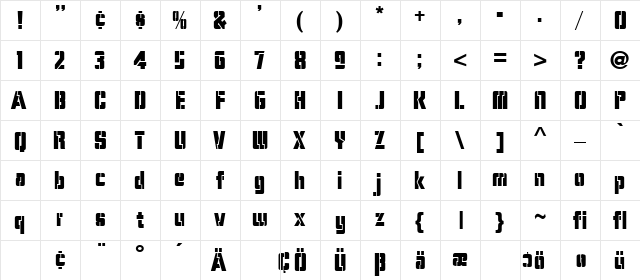
Stencil Camera Regular
Design Context for Stencil Camera Typeface
Stencil Camera borrows the utilitarian aesthetic of stencil lettering, with its characteristic cutaways and no-frills construction lending an industrial edge.
Ideal for industrial branding, streetwear, military-adjacent aesthetics, and urban signage projects.
Pro Tip: Pair Stencil Camera with raw, utilitarian design elements — exposed concrete textures, flat colour, and minimal ornamentation suit it well.